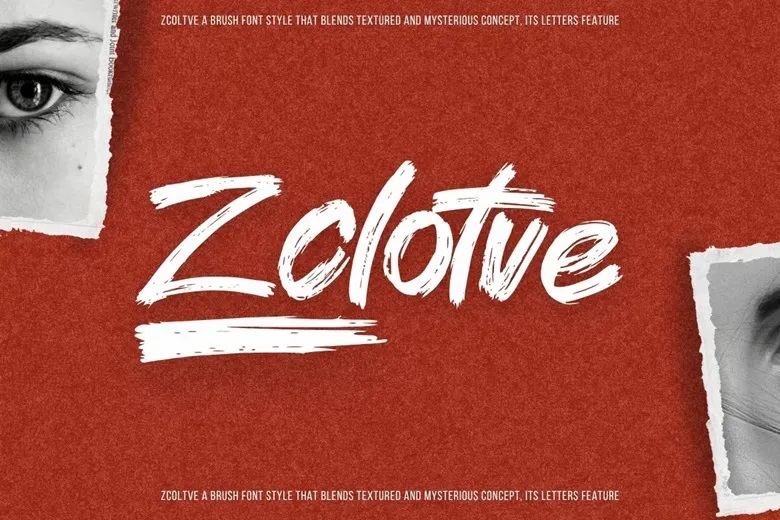
Zclotve Font
Zclotve is a subtle, light hand-lettered brush font that brings a natural, handmade touch to your content. Its detailed texture works well for logos and product branding, whether for lifestyle, activewear, or sports brands.
Because the font is so clean, light and easily adaptable, it is a great choice for printable templates, text overlays or description boxes. It can also be used for titles, invitations, books and magazine covers, stationery, greeting cards, t-shirts and activewear, posters and street art.
Zclotve Brush Script Font